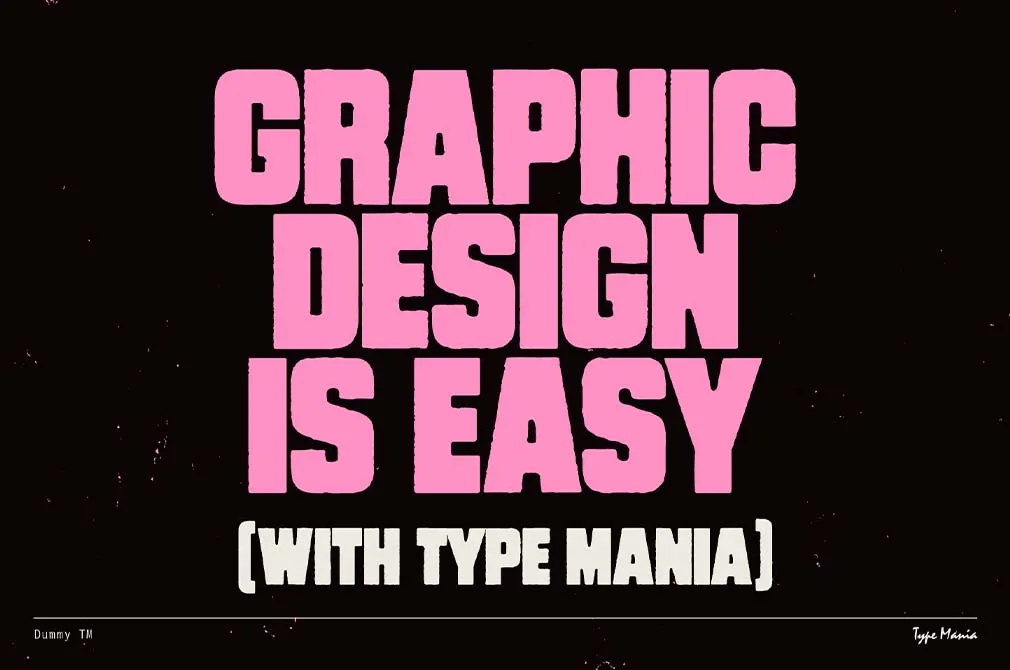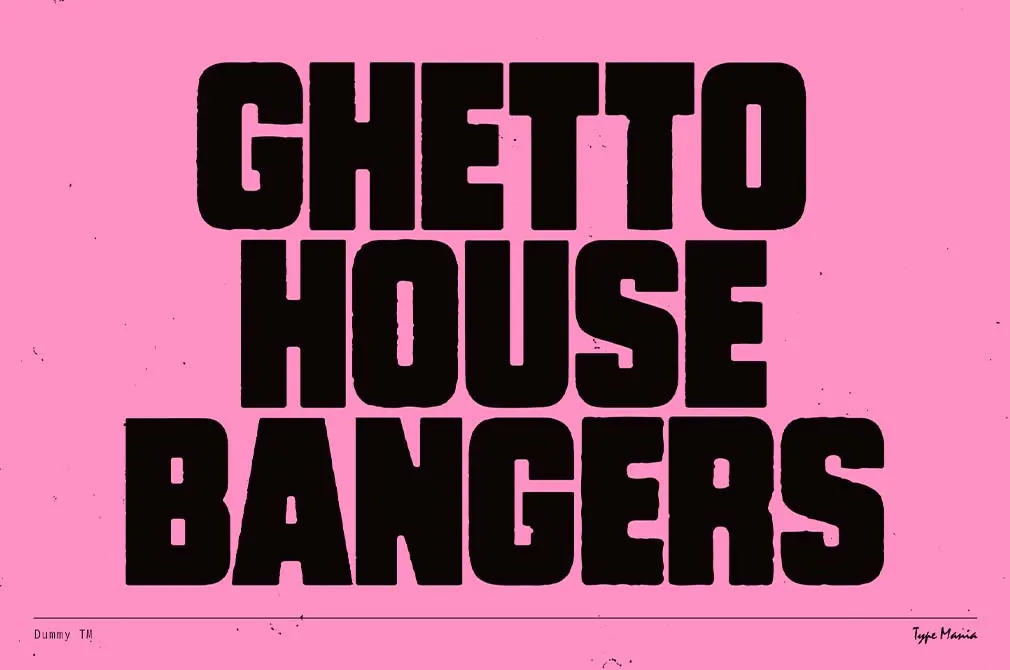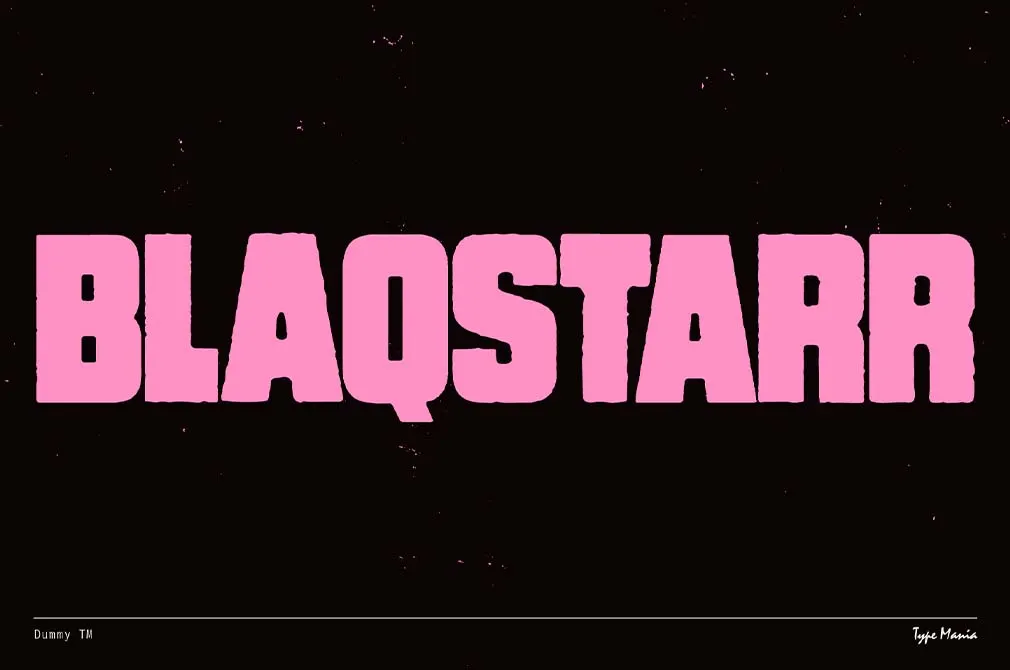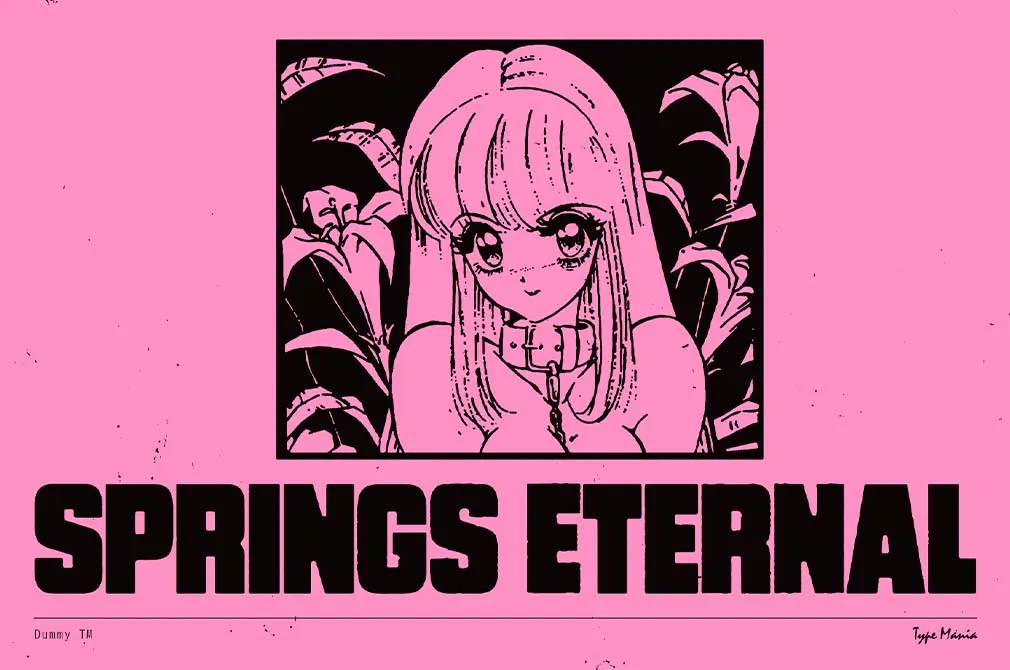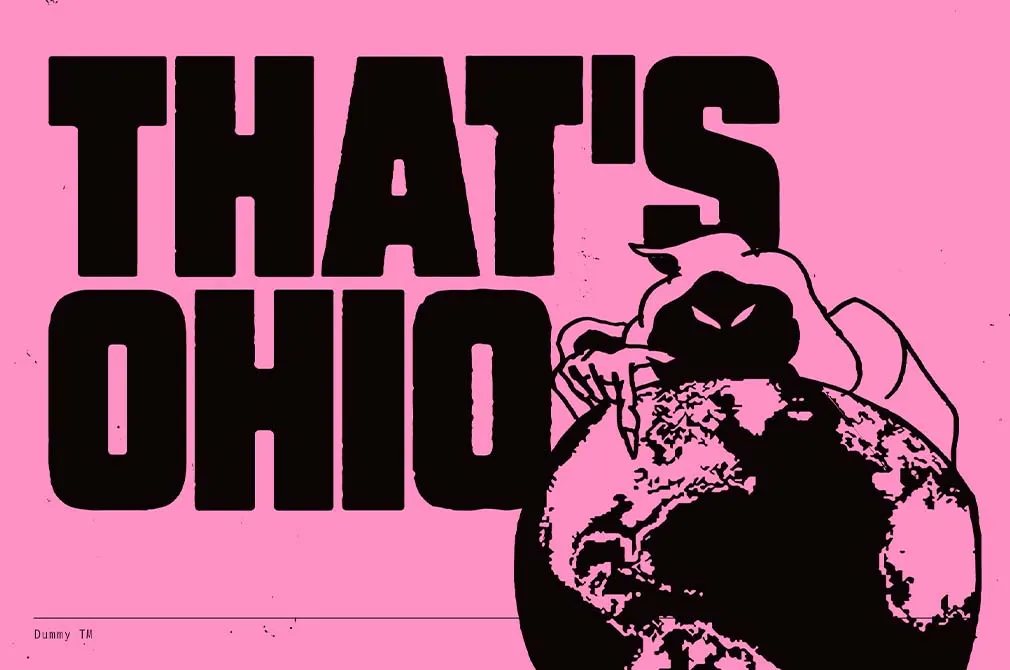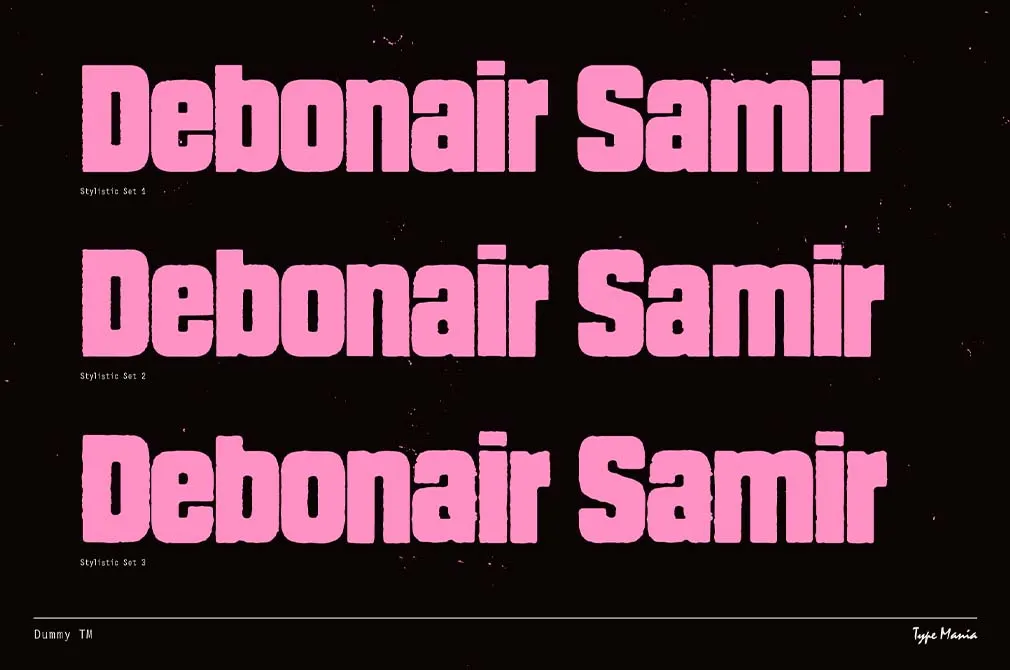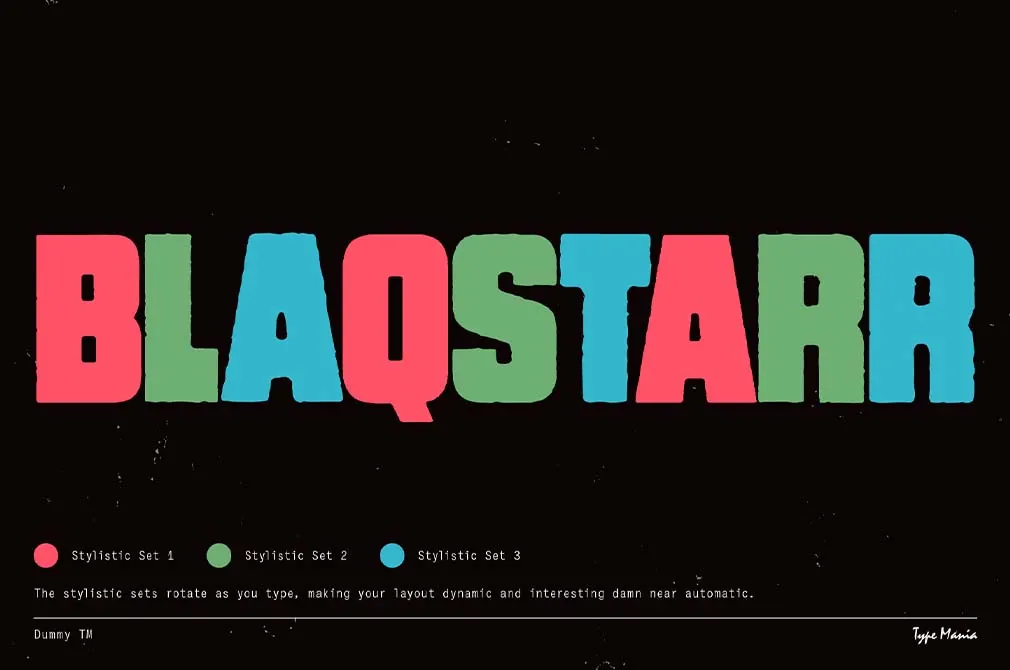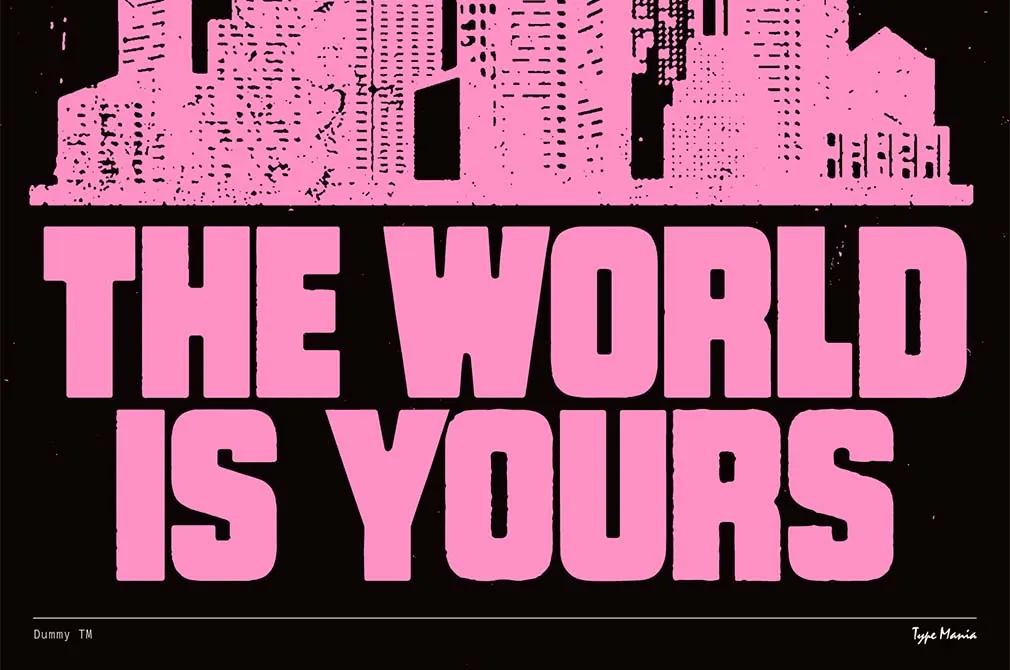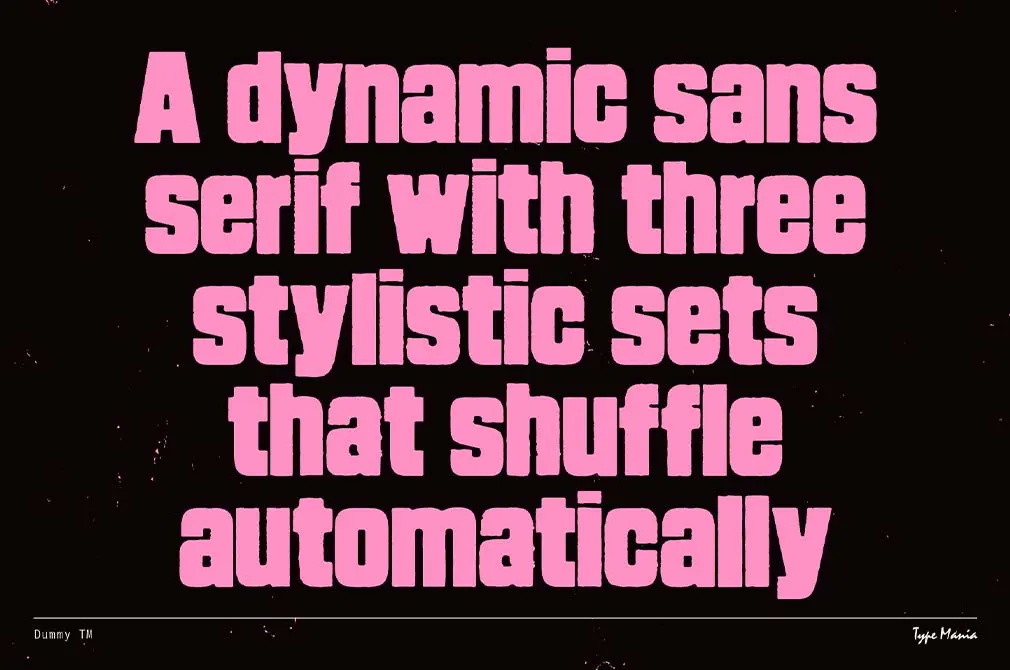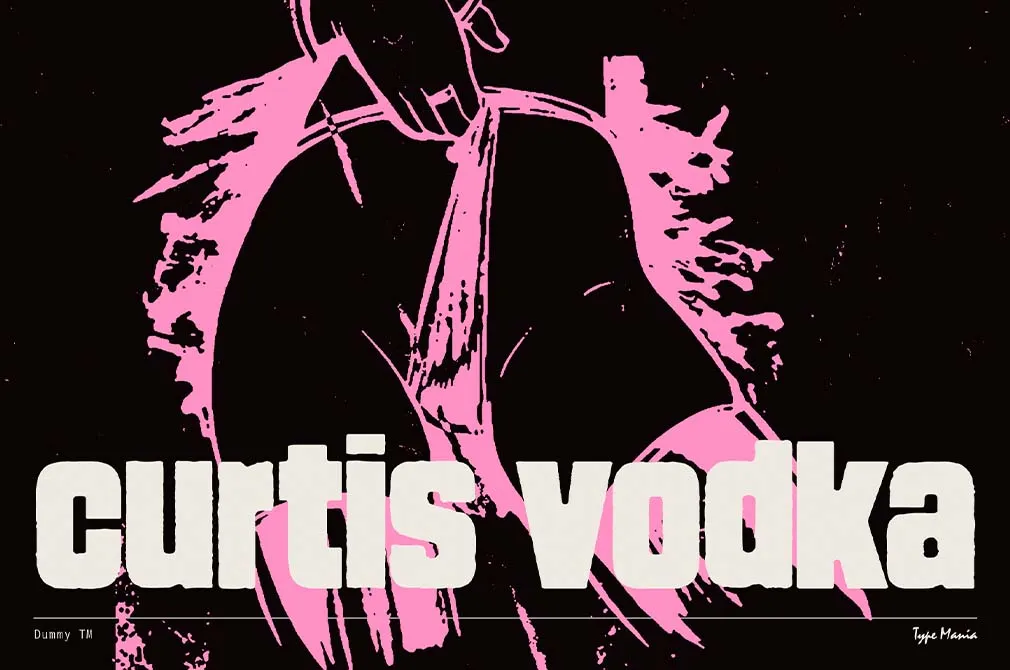
Dummy TM — Bold Distressed Type
A bit of grunge never hurt anyone, but what if there's an entire flow of grunge vibe? Dummy TM is literally made of 'badassness', which we borrowed from 80s and 90s rock bands and posters.
When someone says sans serifs are basic, consider mentioning Dummy TM to them. Despite its basic character shape with thick, heavyweight elements, it looks like genuine typography featured in advertising or copies made by clunky printers. At your disposal are three stylistic sets, upper and lowercase letters, punctuation, numbers, and multilingual support, so you can design any print for tees and hoodies.